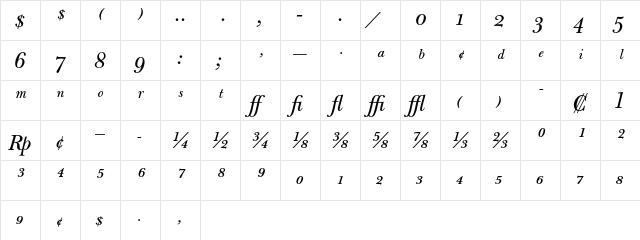
Bulmer MT Italic Expert
Design Context for Bulmer MT Typeface
Bulmer MT takes a measured approach to typography — its balanced proportions and neutral character make it a reliable workhorse for both digital and print work. The slanted form adds forward momentum and visual energy.
Pro Tip: Use Bulmer MT for emphasis, pull quotes, and subheadings where its slanted energy can add rhythm to the layout.